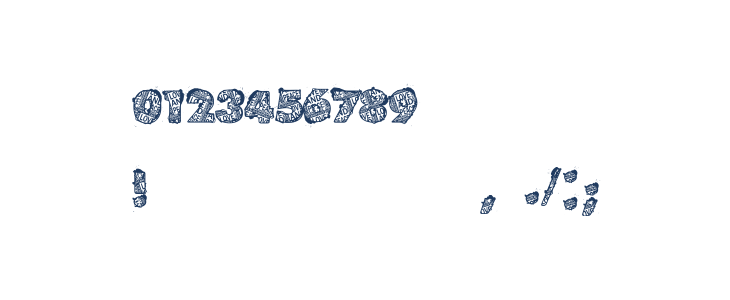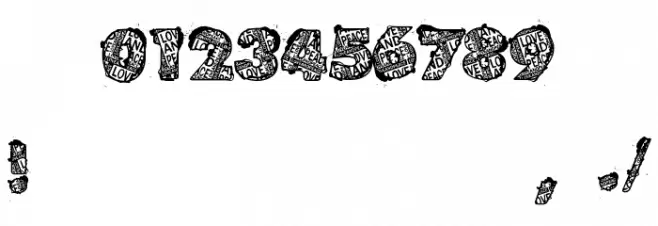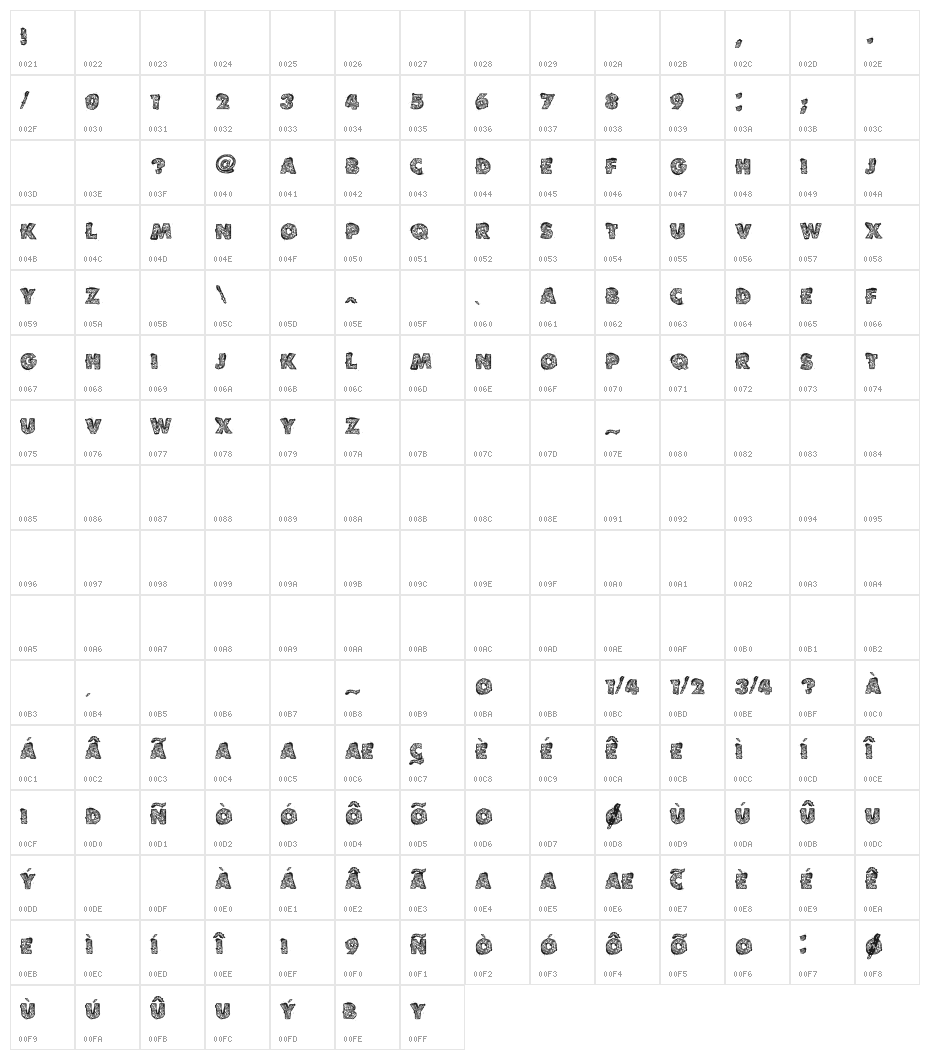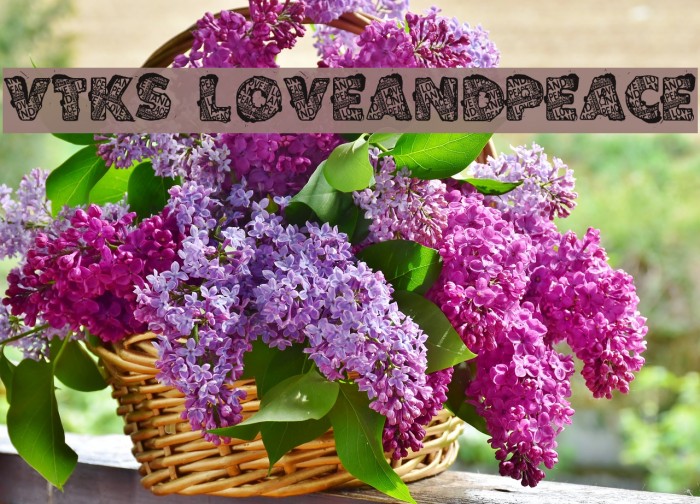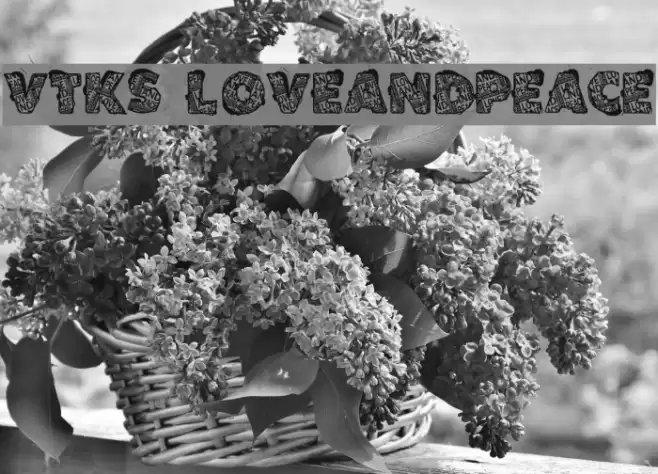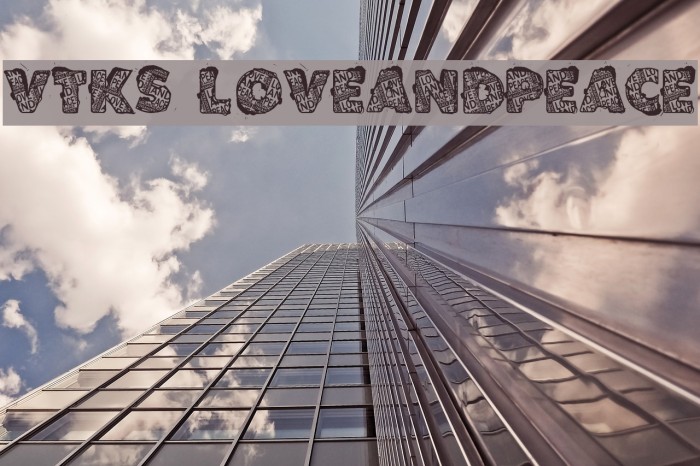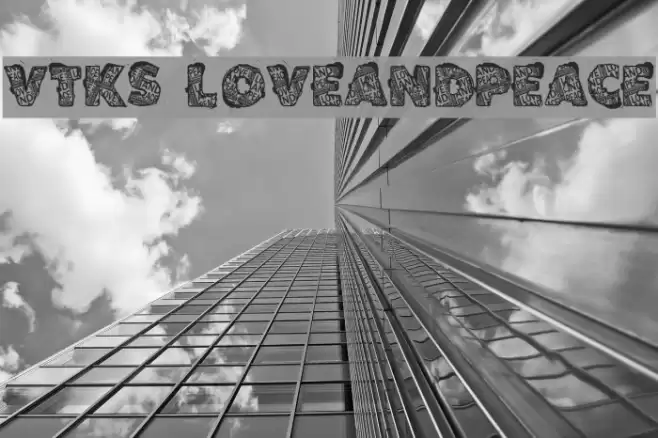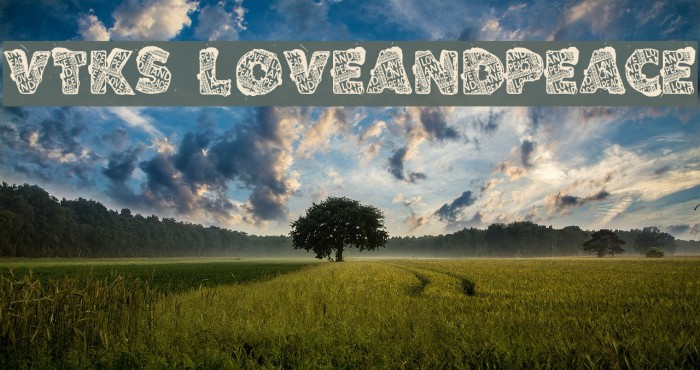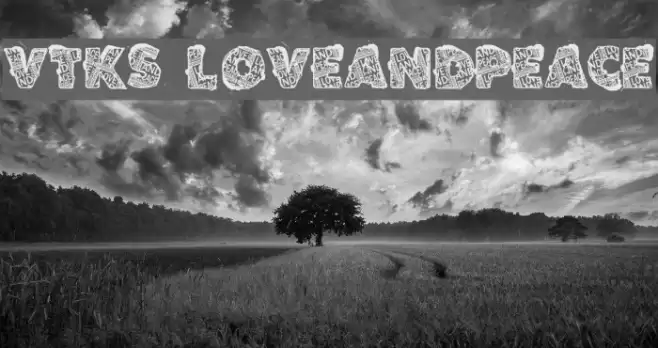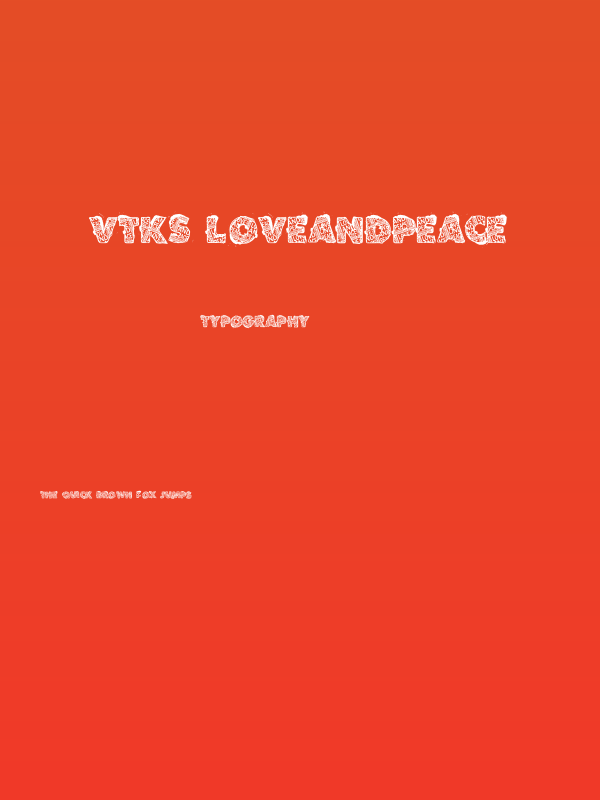
VTKS LOVEANDPEACE Font
VTKS LOVEANDPEACE Description
This font features a bold and playful design with each character filled with intricate patterns and words like 'LOVE' and 'PEACE'. The letters are uppercase and lowercase, with a hand-drawn, doodle-like appearance that gives it a unique and artistic flair. The numbers and special characters follow the same style, making the font cohesive and visually engaging. The overall look is reminiscent of graffiti or street art, with a strong emphasis on peace and love themes, making it ideal for projects that require a creative and expressive touch.
| Proposed Projects | Ideal for posters, album covers, t-shirt designs, and any project that aims to convey a message of peace and love with a creative twist. |